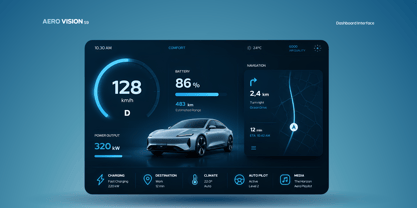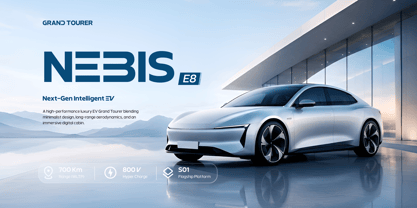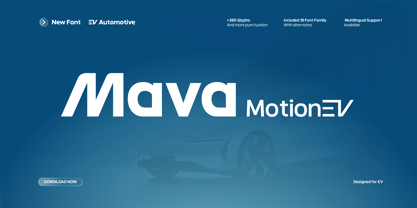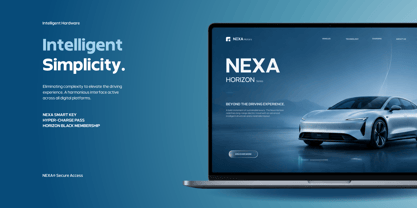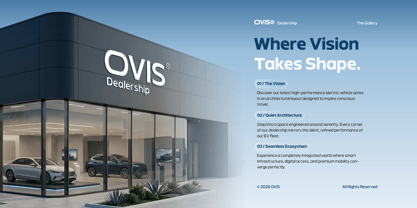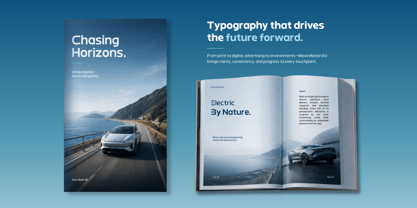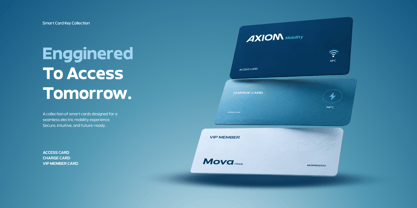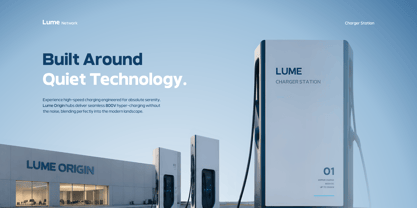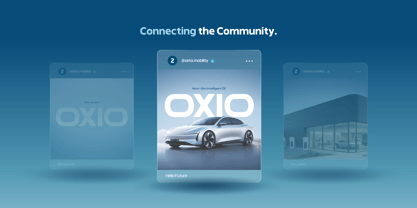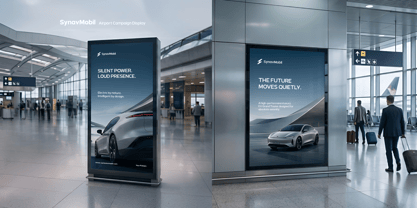
Mava MotionEV
The Mava MotionEV Font Family was designed by Lita Faolina and published by Product Type. Mava MotionEV contains 18 styles and family package options. More about this family
MavaMotionEV is a modern sans serif typeface designed for the rapidly growing Electric Vehicle (EV) industry, automotive brands, sustainable energy companies, and future mobility technology. Featuring clean geometric forms and bold contemporary styling, it delivers a premium, innovative, and professional visual identity for modern businesses.
Including 18 font family styles, multilingual support, MavaMotionEV is ideal for logos, corporate branding, electric vehicle manufacturers, battery technology, charging infrastructure, automotive websites, UI design, dashboards, presentations, packaging, advertising, and any project that requires a clean, futuristic, and technology-driven appearance.